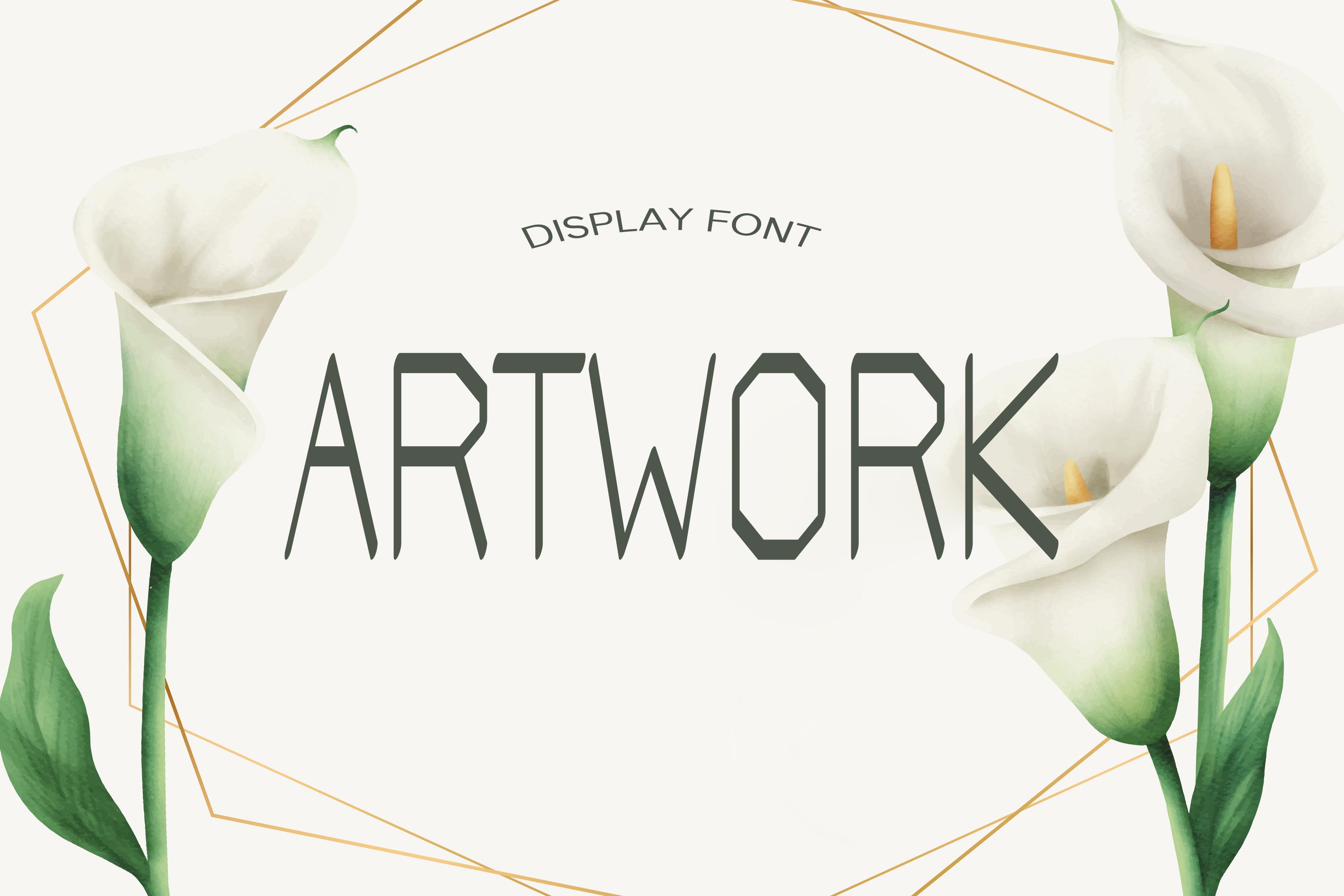
Artwork Font Description
Artwork is a display font with geometric characters and rigid lines that add to an art deco style. It is a modern, all caps typeface that is perfect for branding projects, striking posters, and as a unique display font for web or app development.